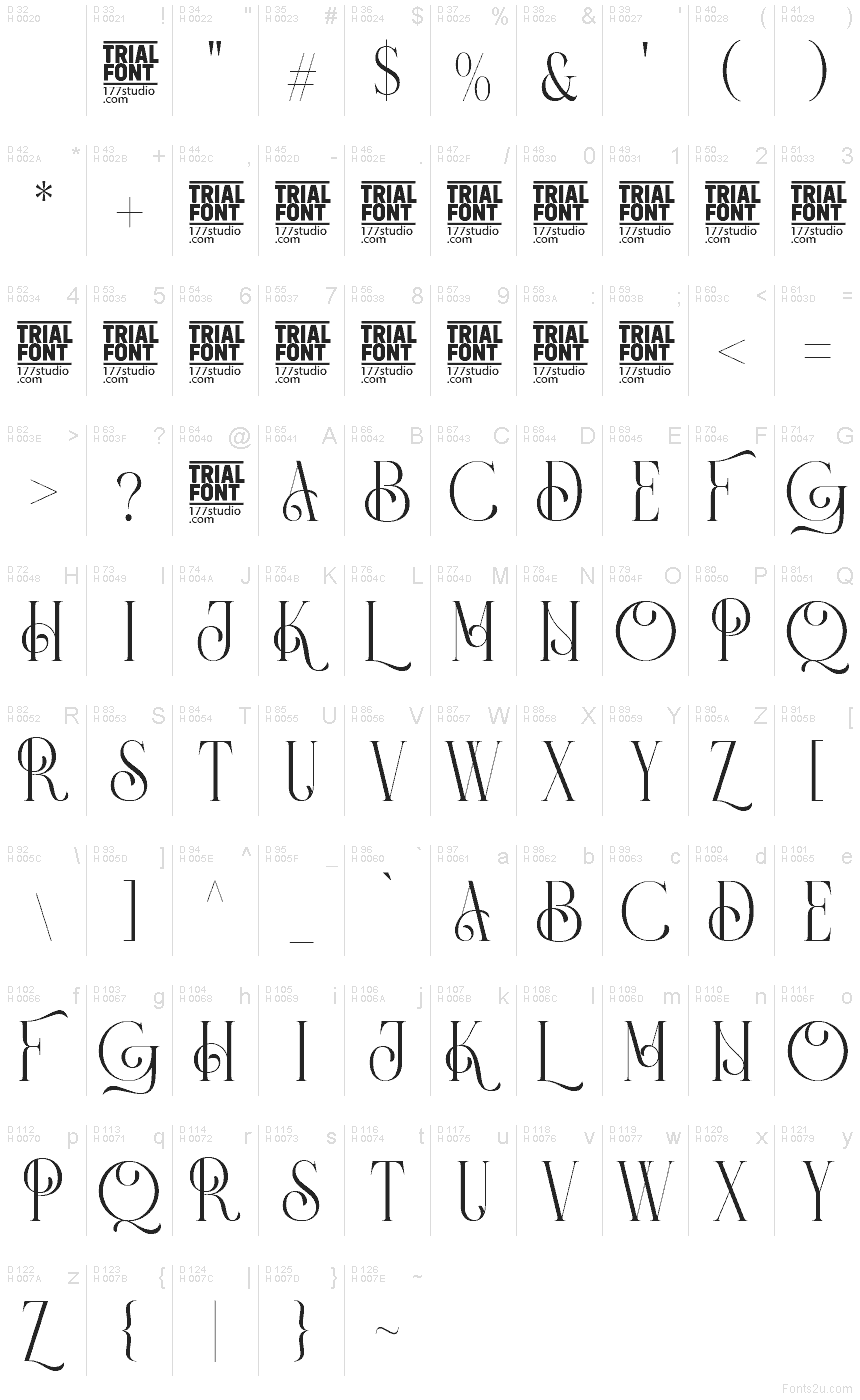
Panorama Ligatures Light font by 177Studio is a free vintage decorative typeface that turns words into ornament. From the Panorama Ligatures family, its hairline strokes, curling flourishes, and lavish ligature sets knit letters together like wrought‑iron signage. The result feels airy yet opulent-think hand‑inked posters from a century ago, but with crisp, modern precision.
Using Panorama Ligatures Light, headlines take on a graceful rhythm that reads clearly while looking exquisitely custom. It shines on boutique logos, wine or perfume labels, book covers, wedding stationery, theater posters, and heritage‑styled packaging. Give it room to breathe and set it large; pair with a clean geometric sans for body copy to let this free font’s swashes do the talking.